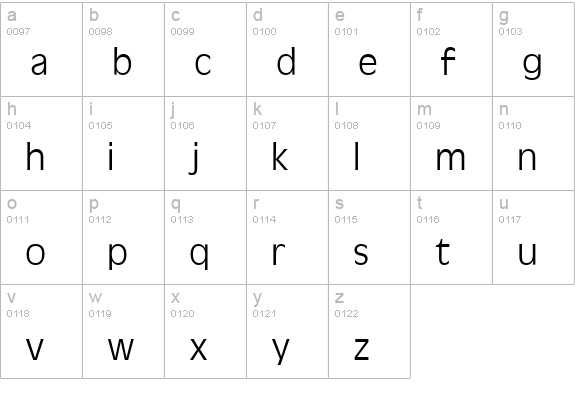
Antigone-Light-Regular is a refined, elegant variant in the Antigone typeface family \xE2\x80\x94 well suited to elegant body text, refined sub-headings, and luxury branding.
Antigone-Light-Regular is a modern and elegant font that exudes sophistication and style. With its clean lines and delicate curves, this typeface is perfect for a wide range of design projects, from branding to editorial layouts. The light weight of the font adds a touch of subtlety and grace to any text, making it ideal for conveying a sense of refinement and sophistication. What sets Antigone-Light-Regular apart is that it is not only visually appealing but also free to download. That's right, this exquisite font is freely available for you to use and enjoy at FontsMarket.com. Whether you're working on a personal project or a professional design, Antigone-Light-Regular is sure to elevate your work with its timeless beauty and versatility. Download it today and add a touch of elegance to your creations.